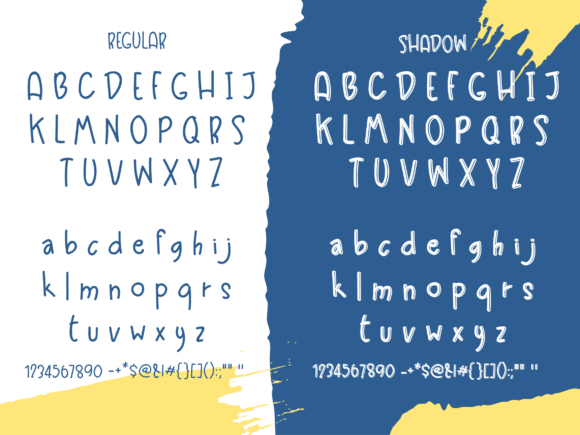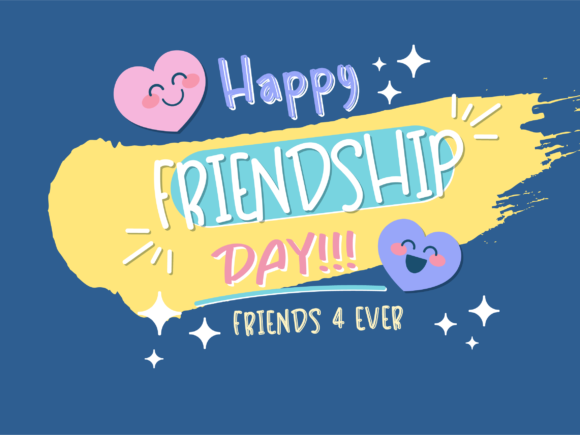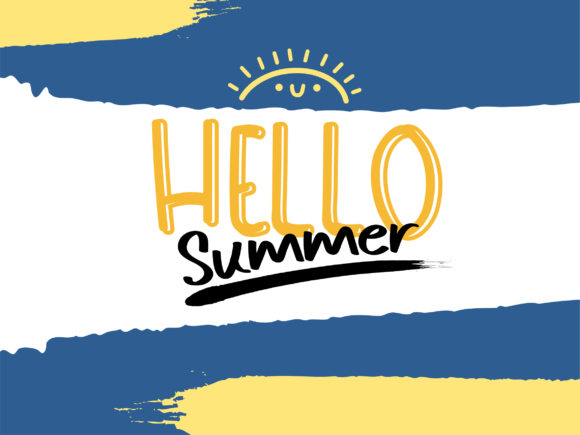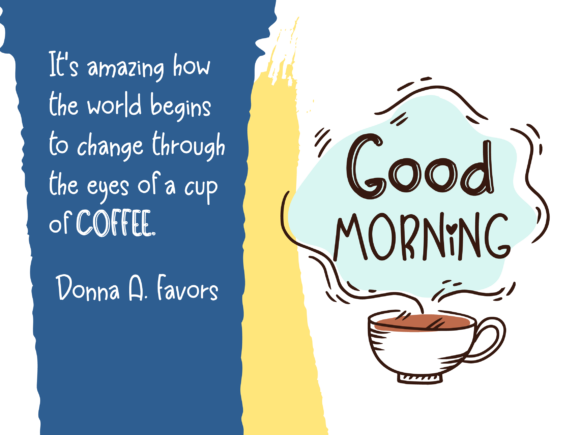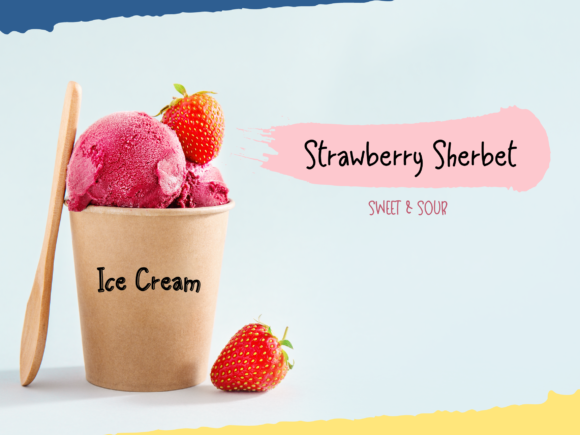
Introduction to Playground Font
Do you remember the thrill of creating art projects in elementary school, when anything seemed possible and imagination knew no bounds? For many of us, those carefree days sparked a lifelong passion for creativity. As designers, we strive to recapture that sense of wonder and playfulness in our work. That’s where the enchanting Playground Font comes in – a high-quality, handwritten font that’s perfect for adding a touch of whimsy to your creative projects.
| 📌 Product Name | Playground Font |
| 👤 Author | BB Type Studios |
With its childlike playfulness and authentic charm, the Playground Font is an invaluable design resource for anyone looking to add a little extra magic to their work. Whether you’re working on a kids’ project, a school assignment, or simply a personal creative endeavor, this font is sure to bring a smile to your face and inspire your imagination. And the best part? It’s available for free download, complete with a transparent background, making it easy to incorporate into any design.
Key Features of Playground Font
- High-quality design for a creative project, perfect as a design resource for artists and designers.
- Features a unique and playful style, making it perfect for children’s books, educational materials, and other creative projects.
- Designed to be highly legible, even at small font sizes, ensuring that your message is conveyed clearly and effectively.
Honest Review: Playground Font
As a designer, I’m always on the lookout for high-quality fonts that can elevate my creative projects. Recently, I stumbled upon the Playground Font, and I’m excited to share my honest review.
What works well: ✨ The Playground Font is a fantastic addition to any design resource. Its playful and modern design makes it perfect for a variety of creative projects. I love how versatile it is – from branding to editorial content, this font can do it all. Plus, the transparent background option is a game-changer for designers who want to add an extra layer of depth to their designs.
- High-quality design: The font’s high-quality design ensures that it will look great on any device or screen.
- Creative freedom: The Playground Font gives designers the creative freedom to experiment with different typography styles and layouts.
Limitations: ⚠️ While the Playground Font is an excellent choice, it’s not without its limitations. Some users may find the font to be a bit too playful for certain projects, and the lack of bold and italic styles may be a drawback for those who prefer a more robust font.
Overall impression: The Playground Font is a fantastic addition to any designer’s toolkit. Its high-quality design, free download option, and transparent background make it an excellent choice for creative projects. While it may not be perfect for every project, it’s definitely worth checking out for designers who want to add a bit of playfulness to their work.
How to Use Playground Font
The Playground Font is a high-quality design resource ideal for creative projects. This versatile font offers a transparent background, making it perfect for various applications.
Getting the Most Out of Playground Font
To get the most out of the Playground Font, experiment with different font sizes, colors, and styles. Combine it with other design elements to create a unique and eye-catching visual identity.
The Playground Font is suitable for various design projects, including logos, branding materials, social media graphics, and marketing materials.